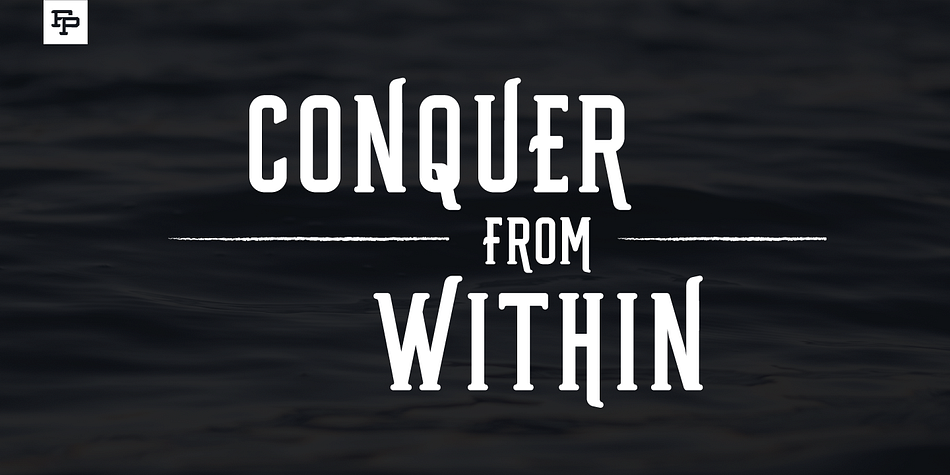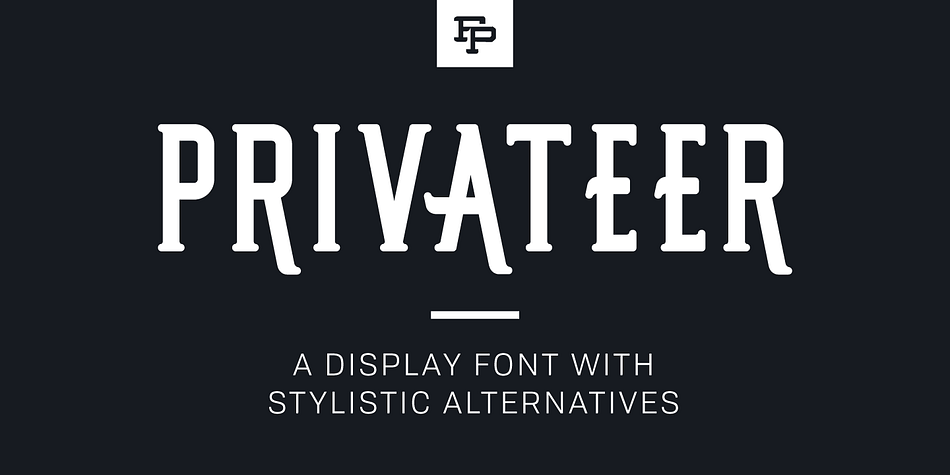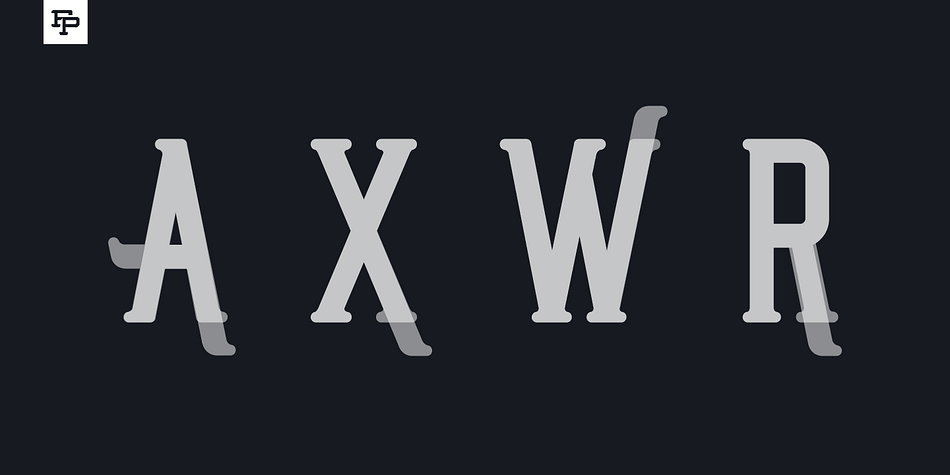
Designed by Ryan Welch, Privateer is a western and display sans font published by Fresh Pressed Fonts.
Privateer is a serif display typeface that has two sets of uppercase letters. One set is bare bones, a classic serif font great for a classy header. The second set is for an extra stylized look. It’ll add a bit of flare and body to a header or title.
The font is designed with an upper and lower case set so that you can experiment between using embellished letters when you wish. There are many combinations of letters you can try out and every word can have multiple different looks.